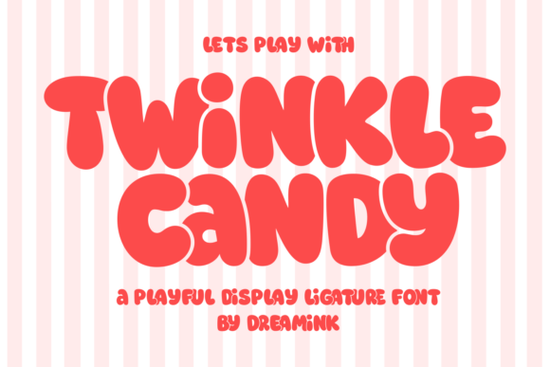
Looking for a playful typeface that brings warmth and personality to your designs? Twinkle Candy is a display ligature font built around rounded, whimsical letterforms inspired by sweets, childhood nostalgia, and cheerful design. It works well for anyone creating branding, packaging, kids' products, or social media content and it's available on Creative Fabrica.
What Makes Twinkle Candy Different From Other Playful Fonts?
Plenty of display fonts claim to be "fun," but Twinkle Candy backs it up with specific design details that actually matter in practice. The font features custom ligatures that give text a hand-lettered feel without looking messy. The rounded outlines stay legible at both small and large sizes, which is something many novelty fonts struggle with.
The letterforms draw from confectionery themes think soft curves, balanced spacing, and a warmth that feels inviting rather than over-the-top. Compared to fonts like classic display fonts with a dusty texture, Twinkle Candy leans more contemporary and sweet. It sits nicely alongside other playful options such as handwritten-style display fonts while offering its own distinct personality.
Who Is This Font Actually For?
Twinkle Candy is a solid pick for several types of creators:
- Small business owners especially bakeries, candy shops, ice cream parlors, and boutique brands that need a friendly, approachable look
- Print-on-demand sellers for mugs, tote bags, kids' apparel, and greeting cards where a playful typeface sells well
- Children's product designers book covers, activity sheets, party invitations, and nursery wall art
- Social media creators Instagram posts, Pinterest pins, and YouTube thumbnails that need to grab attention quickly
- Crafters and hobbyists scrapbooking, stickers, planner designs, and DIY projects
If your audience responds to cheerful, cozy, and colorful design language, this font fits right in.
Where Does Twinkle Candy Work Best?
Because it's a display font, Twinkle Candy is designed for headlines, logos, and short text rather than body copy. Here are some practical uses where it really shines:
- Logo design The rounded ligatures create a memorable wordmark for playful brands
- Packaging Product labels, box designs, and wrapping paper for sweet-themed goods
- Event materials Birthday invitations, baby shower announcements, holiday cards
- Digital content Blog headers, email banners, and promotional graphics
- Merchandise T-shirt designs, sticker sheets, and poster prints
It pairs well with clean sans-serif fonts for body text, so you can keep your layouts balanced. If you're exploring other display styles for variety, options like cartoon-style doodle fonts or retro groovy display fonts can complement Twinkle Candy nicely in a font collection.
Does It Work For Both Print and Digital Projects?
Yes. Twinkle Candy holds up in printed materials like packaging, flyers, and merchandise and on screens for web graphics, social posts, and digital downloads. The smooth curves and consistent stroke weight mean it renders cleanly across different resolutions.
For print-on-demand sellers specifically, this is important. A font that looks great on your computer but falls apart on a printed mug or t-shirt isn't useful. Twinkle Candy's clean outlines avoid that problem.
How Does It Compare To Other Whimsical Display Fonts?
If you're building a font library, it helps to understand where Twinkle Candy fits. Fonts with a bright and magical display style tend to lean more fantastical, while Twinkle Candy keeps things grounded with its candy-inspired warmth. It's less cartoonish than some kids' fonts and more structured than loose brush scripts.
That balance makes it versatile. You can use it for children's projects and for adult-facing brands like bakeries or cosmetics anything that benefits from a touch of sweetness without looking juvenile.
Quick Checklist Before You Start Designing
Here's a simple next step to get the most out of this font:
- Pair it wisely Use a neutral sans-serif for body text so the display font doesn't compete
- Test at your output size Check legibility at the exact size you'll use, whether it's a business card or a banner
- Use the ligatures Turn on OpenType ligature features in your design software to get the hand-lettered look
- Match your color palette Soft pastels, candy tones, and warm neutrals complement the font's personality